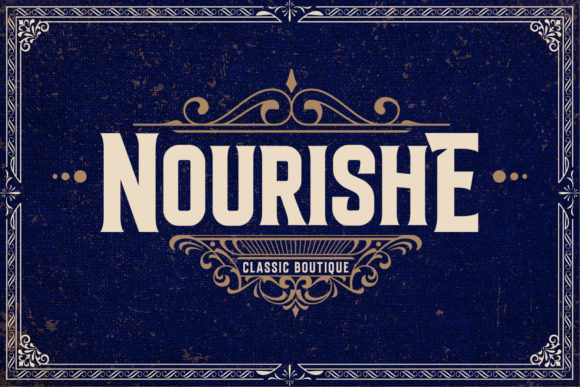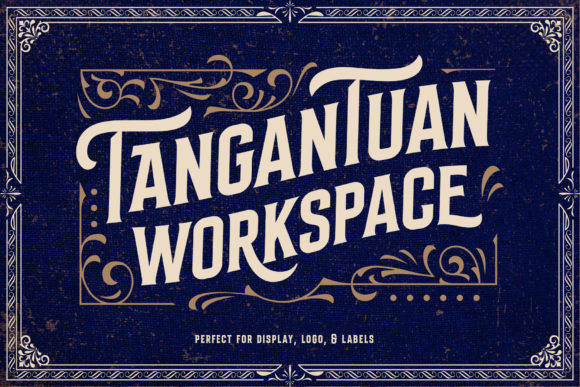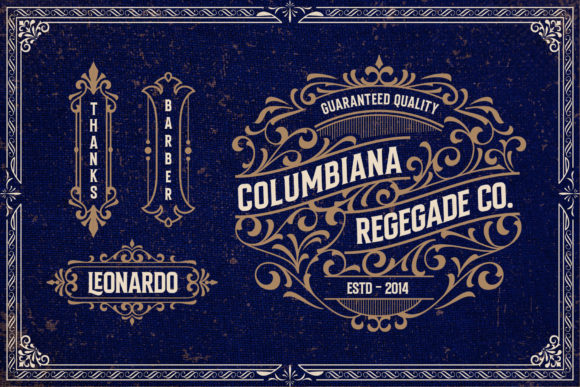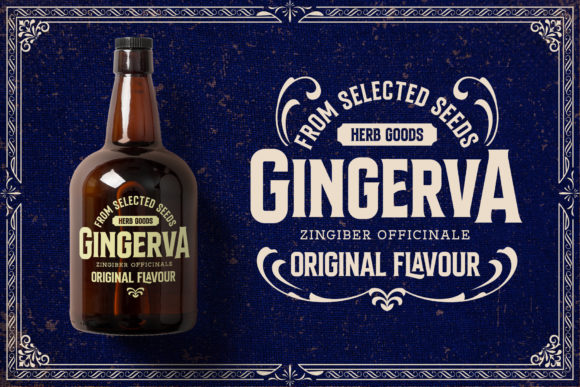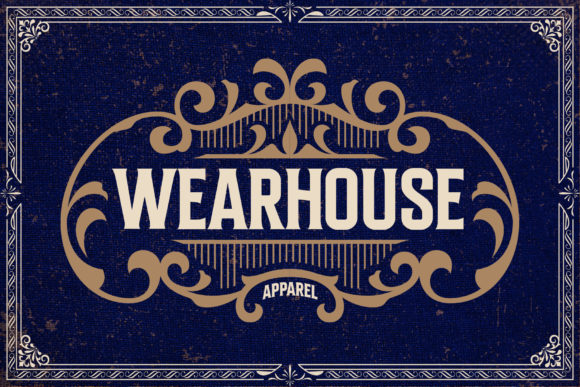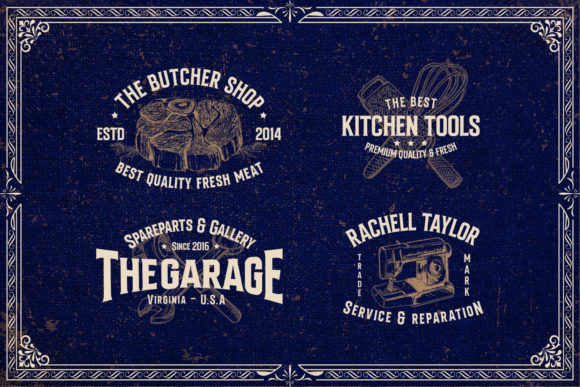
Bondrians Font: Elevate Your Designs with a Touch of Vintage Elegance
In the world of typography, fonts play a crucial role in bringing creative ideas to life. For designers and crafters looking to add a dash of vintage charm to their projects, Bondrians Font is an excellent choice. This authentic display font is characterized by its unique vintage style, making it perfect for turning any creative concept into a standout masterpiece.
What Makes Bondrians Font Stand Out?
Bondrians Font is not just another font; it’s a statement piece. Its vintage style is reminiscent of classic typography, yet it carries a modern twist that makes it versatile for various design applications. Whether you’re working on a branding project, crafting a logo, or designing a poster, Bondrians Font can add that special touch of elegance and sophistication.
Key Features of Bondrians Font
- Authentic Display Font: Bondrians is designed to make a statement. Its bold and captivating appearance ensures that your text doesn’t go unnoticed.
- Vintage Style: The font boasts a classic, vintage aesthetic that can add a nostalgic feel to your designs.
- Versatility: Despite its specific style, Bondrians Font is surprisingly versatile. It can be used in a variety of design contexts, from digital media to print.
Tips for Maximizing the Impact of Bondrians Font
To get the most out of Bondrians Font, consider the following tips:
- Pair with Simplicity: Bondrians Font makes a bold statement, so pairing it with simpler fonts can create a balanced and visually appealing design.
- Play with Colors: Experiment with different colors to find the perfect match for your brand or design theme. Contrasting colors can make the text stand out even more.
- Consider Context: Think about where your design will be displayed. For instance, a website header might require a larger, bolder version of the font, while a logo might benefit from a more subtle approach.
Bondrians Font is a powerful tool for designers and crafters looking to infuse their projects with a vintage charm. Its unique style, versatility, and ease of use make it an excellent choice for a wide range of design applications. By incorporating Bondrians Font into your projects, you can ensure that your creative ideas stand out and leave a lasting impression on your audience.